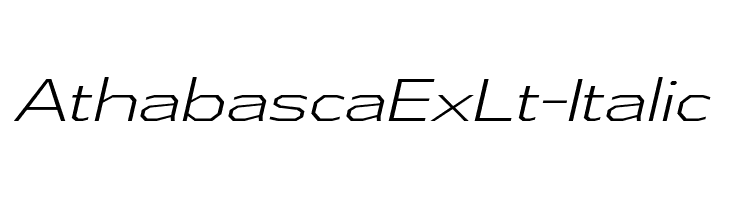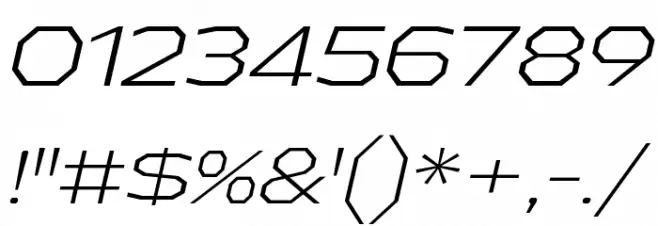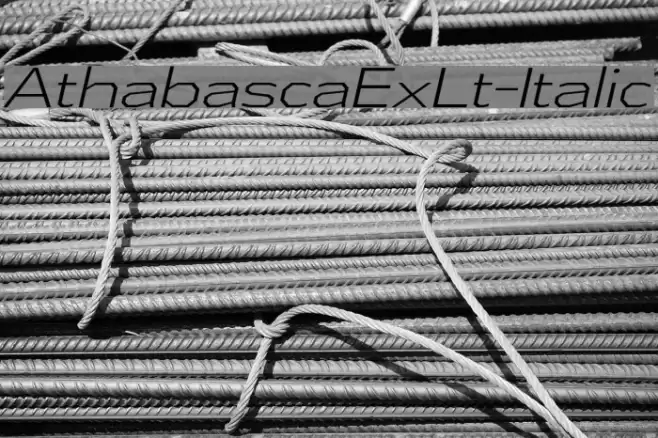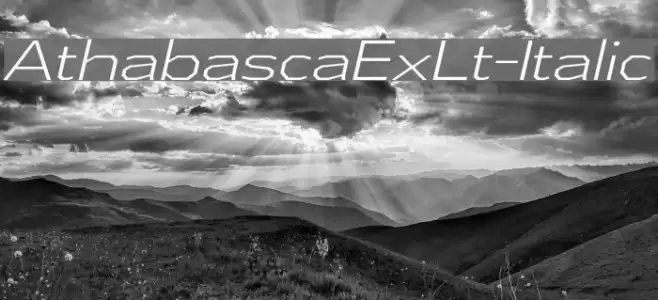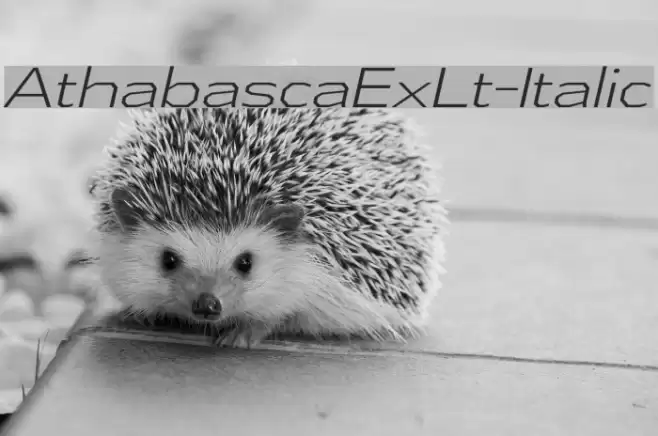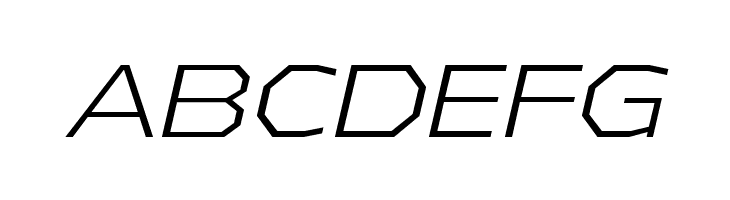
AthabascaExLt-Italic Font
AthabascaExLt-Italic Description
This font features a sleek, modern design with a geometric structure that emphasizes clean lines and sharp angles. The italic style adds a dynamic and forward-leaning appearance, enhancing its contemporary feel. The uppercase and lowercase letters maintain a consistent slant, creating a cohesive look across all characters. The numerals and special characters follow the same design principles, ensuring uniformity throughout. Its minimalistic approach and precise execution make it suitable for projects that require a futuristic or technical aesthetic.
A modern, geometric italic font with clean lines and sharp angles from Uncategorized fonts.
• Proposed Projects: Ideal for technology branding, modern advertising, and sleek editorial design.
• Overall Style: Modern
• Use Case: Headlines, Logos